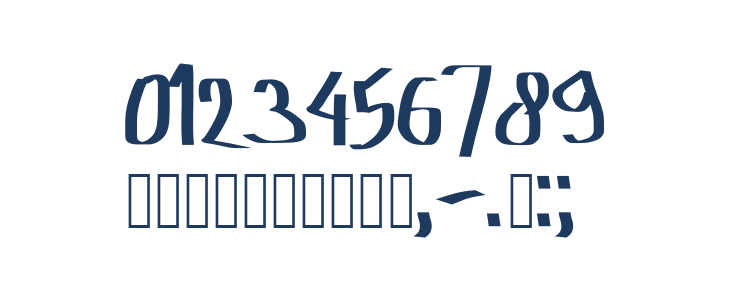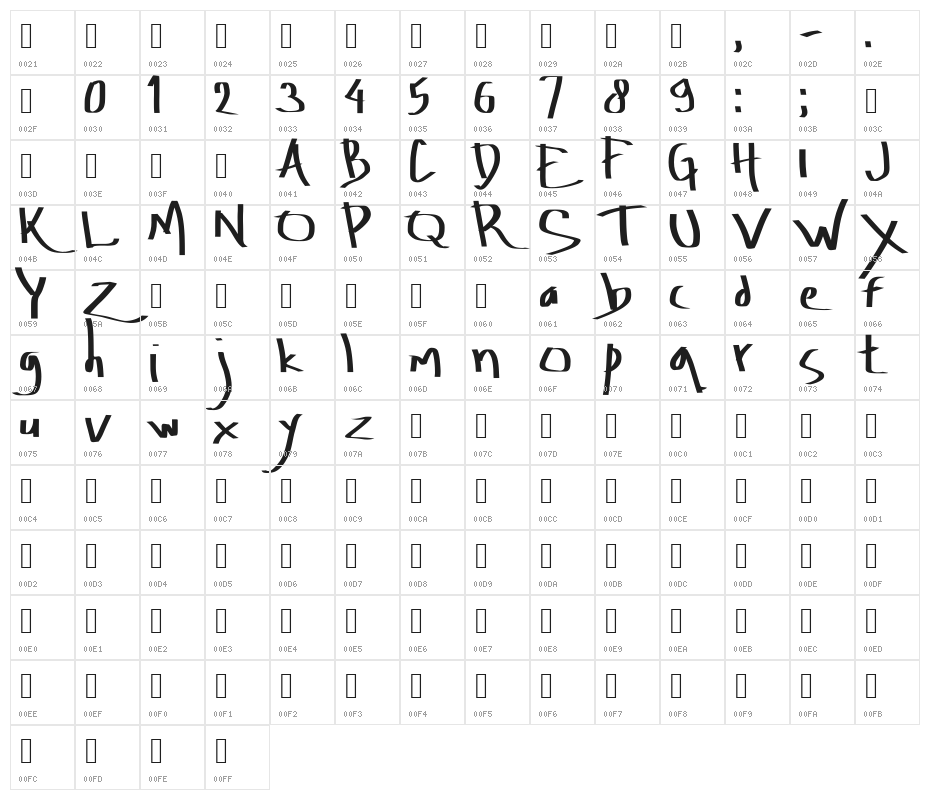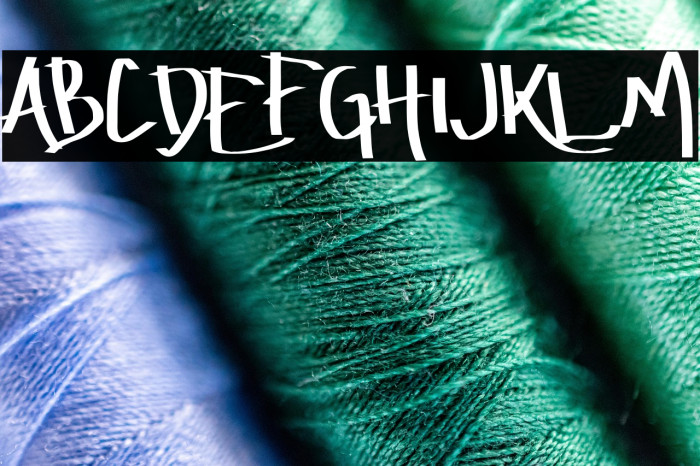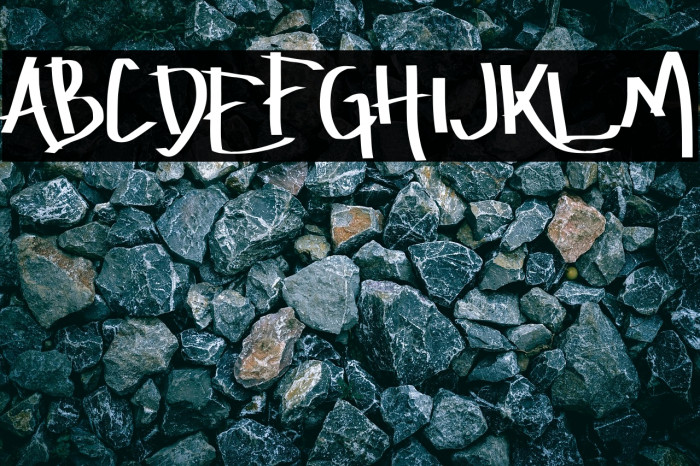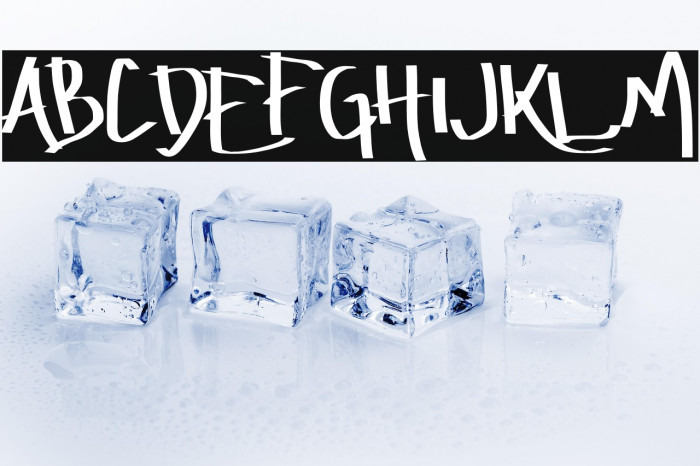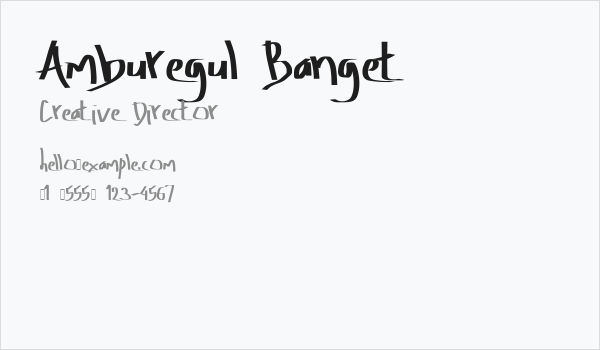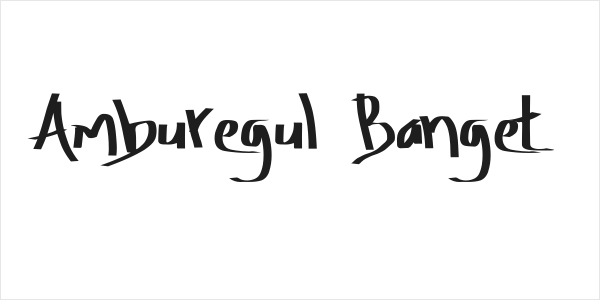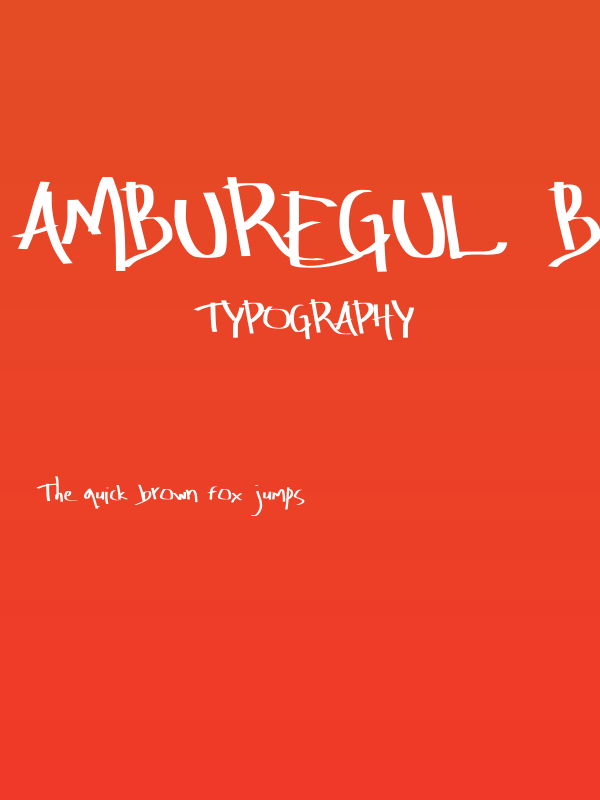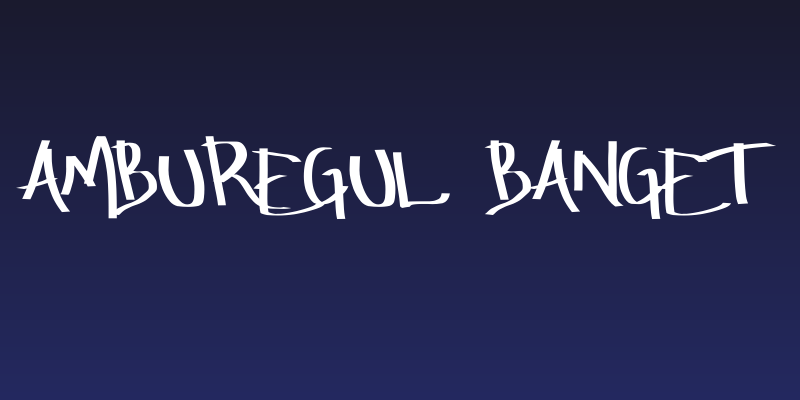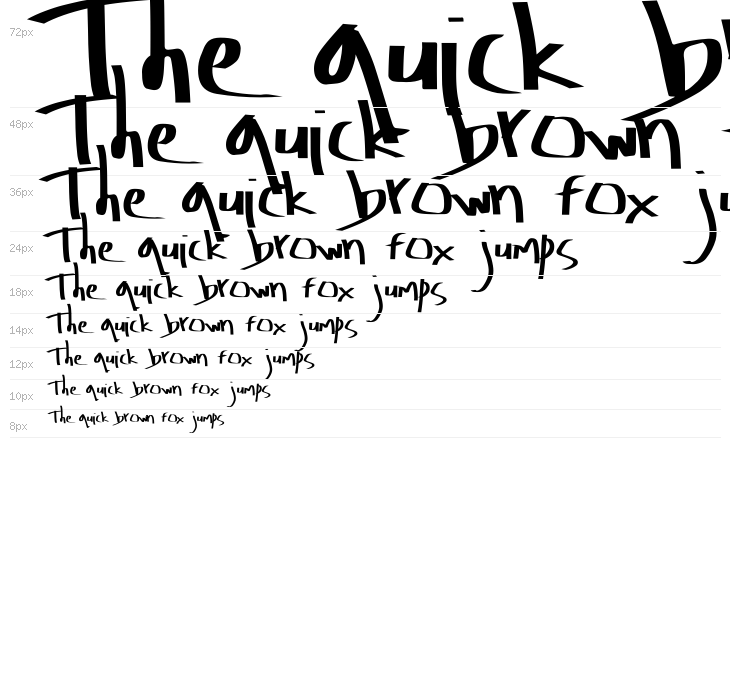
Amburegul Banget Font
Amburegul Banget Description
This font features a dynamic and expressive style, characterized by its handwritten appearance. The letters are bold and slightly irregular, giving a sense of movement and energy. The uppercase and lowercase letters maintain a consistent flow, with some characters extending slightly beyond the baseline, adding to its casual and artistic feel. The numerals are equally bold, with a playful yet legible design. Special characters are included, maintaining the same energetic style. This font is ideal for projects that require a personal touch or a creative flair.
| Proposed Projects | Ideal for creative projects such as posters, invitations, logos, and branding materials that require a personal and artistic touch. |